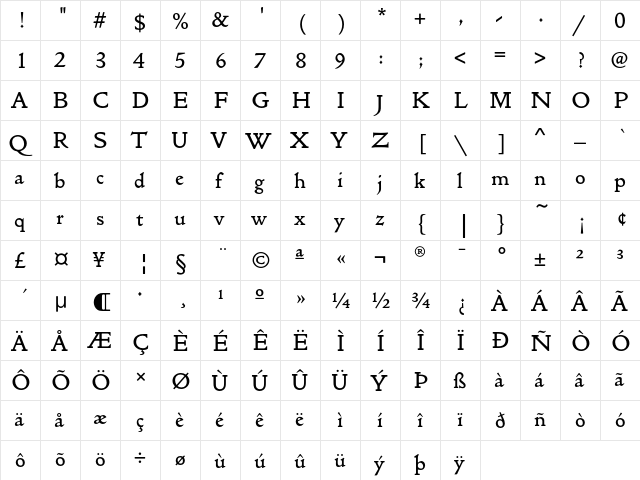
GoldenTypeEF Original
Design Context for GoldenTypeEF Typeface
GoldenTypeEF takes a measured approach to typography — its balanced proportions and neutral character make it a reliable workhorse for both digital and print work.